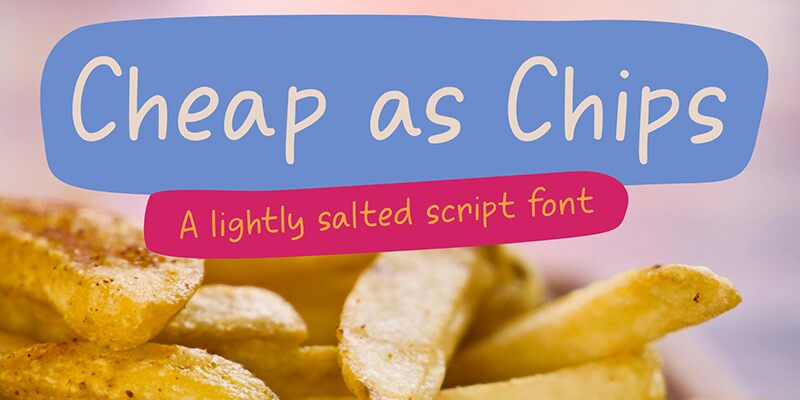
Cheap As Chips DEMO Regular
Cheap As Chips is a free handwritten font designed by David Kerkhoff. Its casual feel and modern aesthetic make it approachable and friendly, lending a personal touch to any design. The relaxed style creates an inviting atmosphere.